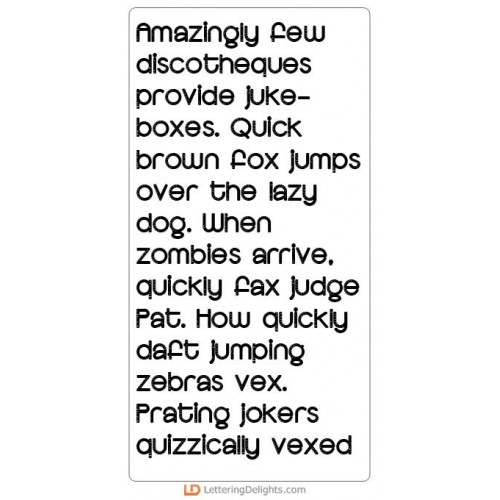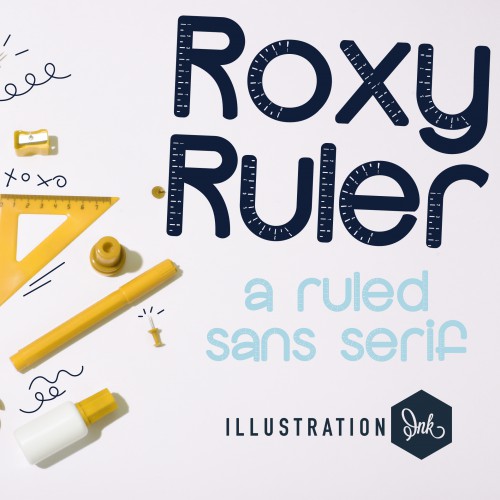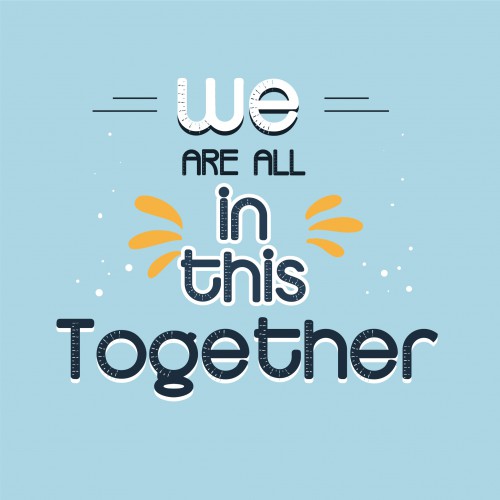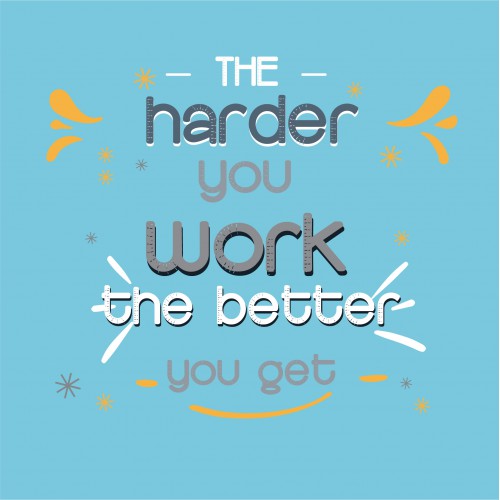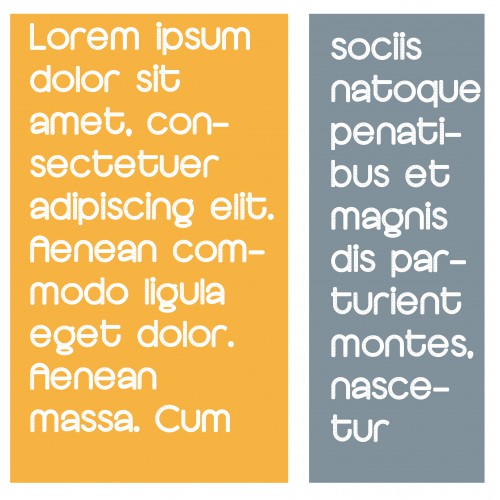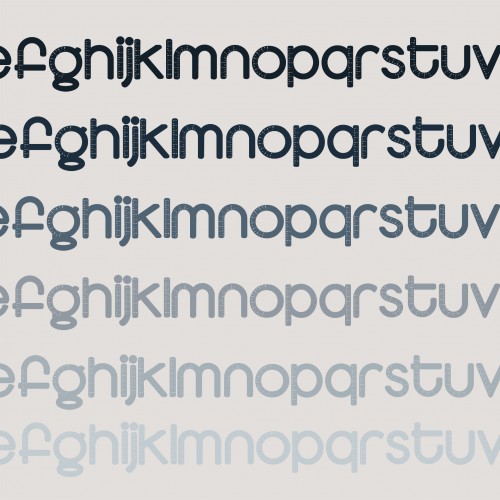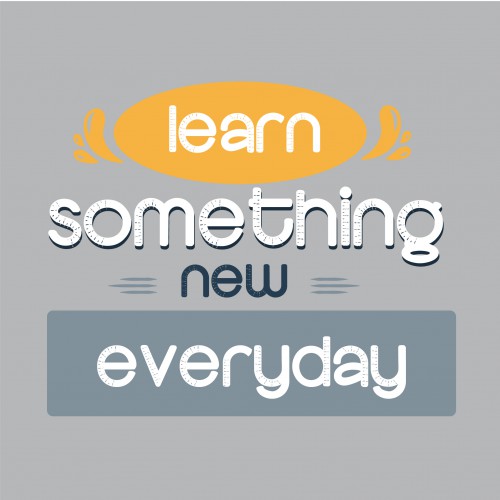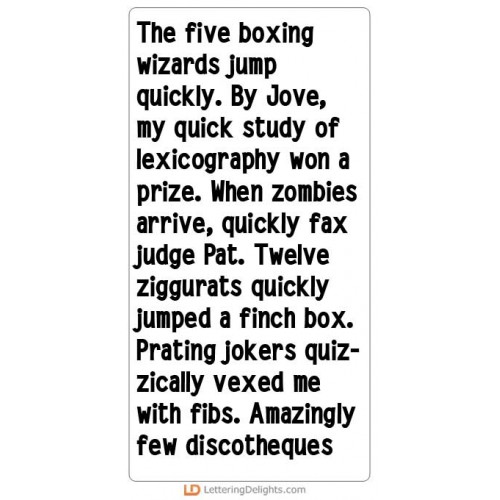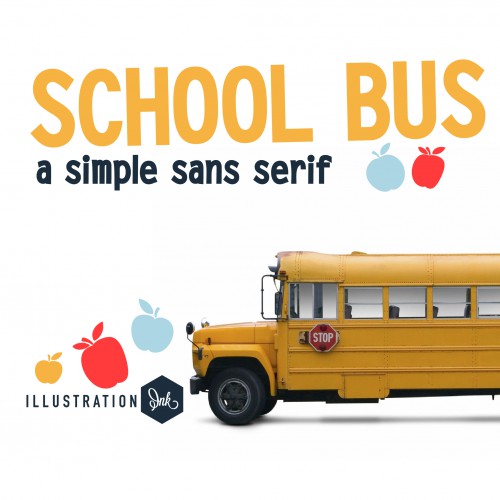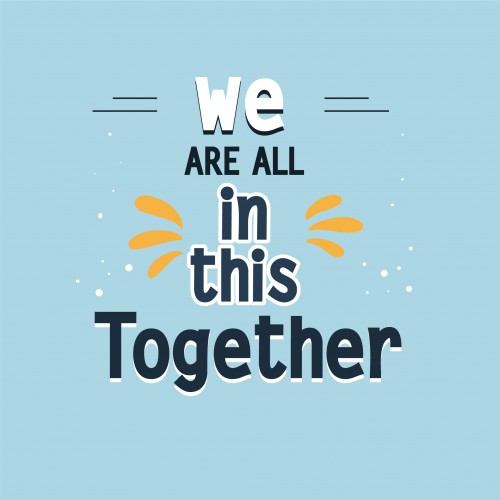
Sch-doodle 2 - Font Bundle
This fun school bundle features ten all new, school-influened fonts.
• PN Clipped - FN
• PN Apple for Teacher - FN
• ZP Roxy Ruler - FN
• PN Longmire Learning - FN
• ZP Teacher Chalk Shadow - FN
• ZP Teacher Note 2 - FN
• PN Schoolgirl - FN
• ZP Flashcard - FN
• SNF Chemistry 2.0 - FN
• ZP School Bus - FN
PN Clipped - FN
This sans serif font has an uppercase with paperclips and lowecase without. For best results mix cas..
PN Apple for Teacher - FN
This retro sans serif font sports apples for centers for a great back-to-school font for kids...
ZP Roxy Ruler - FN
This hand-crafted font features rulers throughout each letter and number...
PN Longmire Learning - FN
This hand-crafted, sans serif features positive attributes for education and learning defined throug..
ZP Teacher Chalk Shadow - FN
This hand-written chalk-like font has a lot of texture w/ a popular, think, implied shadow..
ZP Teacher Note 2 - FN
This hand-written sans serif has many letters on note pages..
PN Schoolgirl - FN
This hand-written, sans serif features feminine curls, hearts, and a number of ligatures to keep thi..
ZP Flashcard - FN
This hand-crafted font features an uppercase that have animal flashcards (each animal beginning w/ a..
SNF Chemistry 2.0 - FN
This serif font has a variety of additions to make it feel very "chemistry-like", including several ..
ZP School Bus - FN
This blocky sans serif font looks just like the lettering on the back of the school bus when you use..